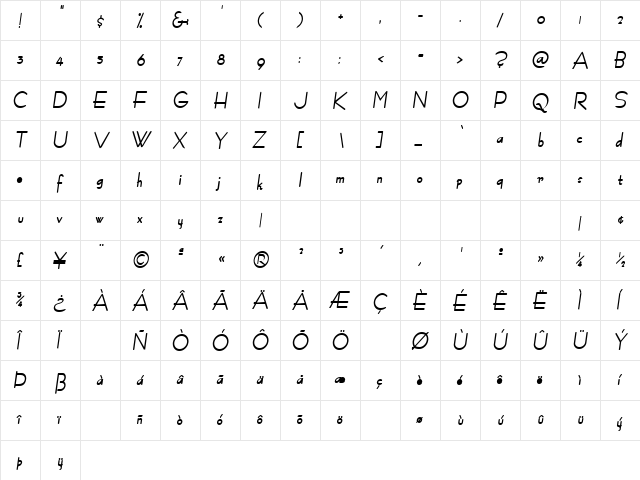
FashionNarrowBlack Oblique Font Preview
Design Context for FashionNarrowBlack Typeface
FashionNarrowBlack takes a measured approach to typography — its balanced proportions and neutral character make it a reliable workhorse for both digital and print work. Its italic angle brings a sense of urgency and motion to the letterforms. Its narrow stance lets it pack a punch even in space-constrained designs.
Pro Tip: Try FashionNarrowBlack for annotation and caption copy alongside an upright companion — the contrast in angle creates a dynamic but ordered typographic system.